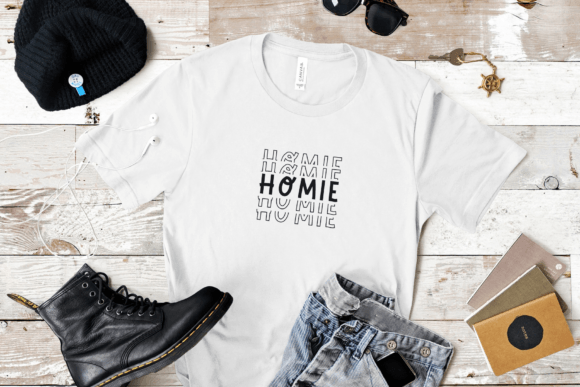
Hello Font
Hello is an eye-catching and modern font. Perfect for headings and titles, this font adds a touch of authenticity to any design project. Its versatility makes it suitable for both digital and print media.